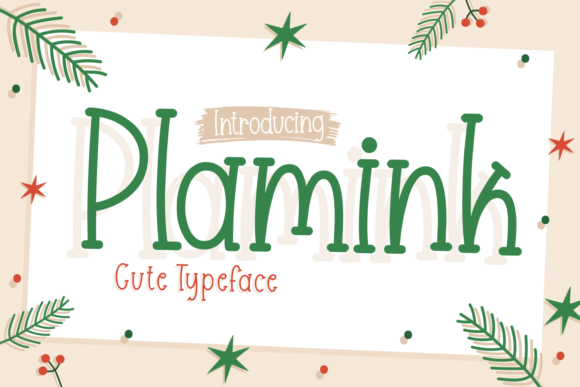
Plamink Font
Adorn your designs with Plamink's radiant energy - a whimsical, playful, and thin display font that captivates with its unique charm. Experience the boundless creativity as you bring your crafty ideas to life, from letterheads and titles to stationery and beyond.
Immerse yourself in the world of Plamink, where your imagination takes center stage. Its unique character adds a dash of delight to any project, making it the perfect choice for those seeking an original and eye-catching style. Elevate your designs to new heights with Plamink's captivating allure.
Step into a world where creativity knows no bounds. Plamink's alluring charm is like a gentle breeze, carrying your designs to new heights of visual excellence. Let your imagination soar as you explore the endless possibilities, crafting masterpieces that leave a lasting impression.